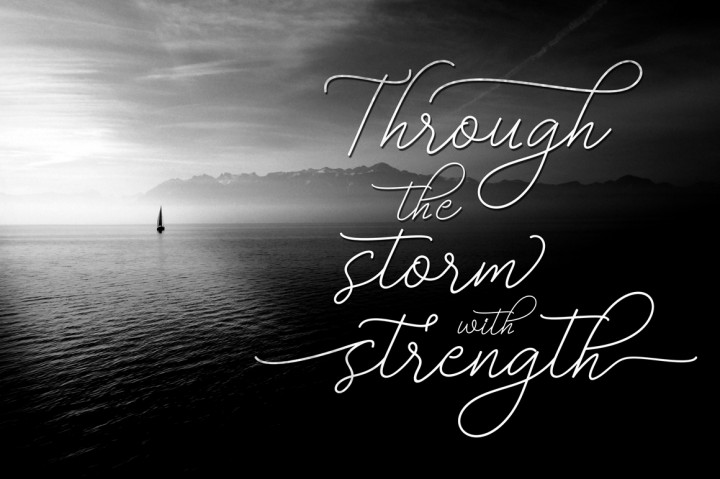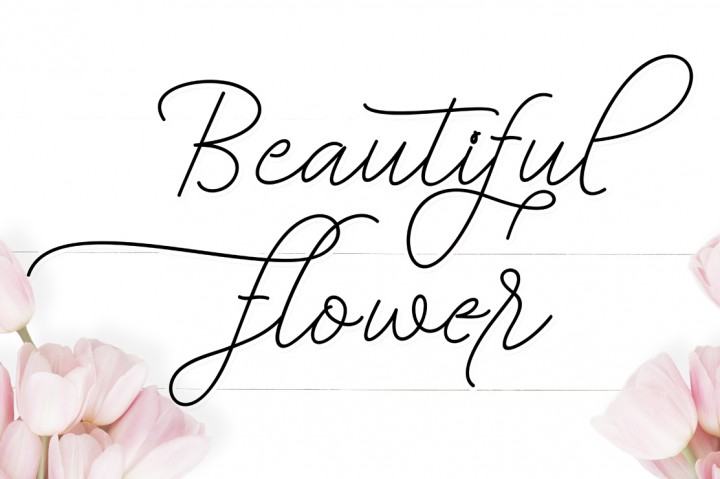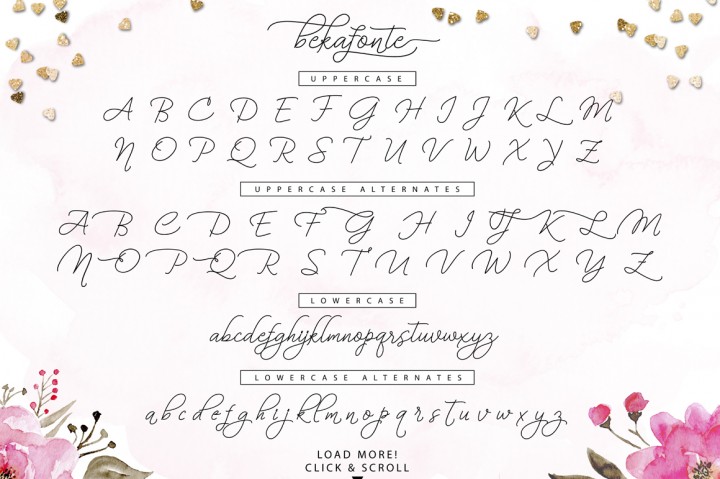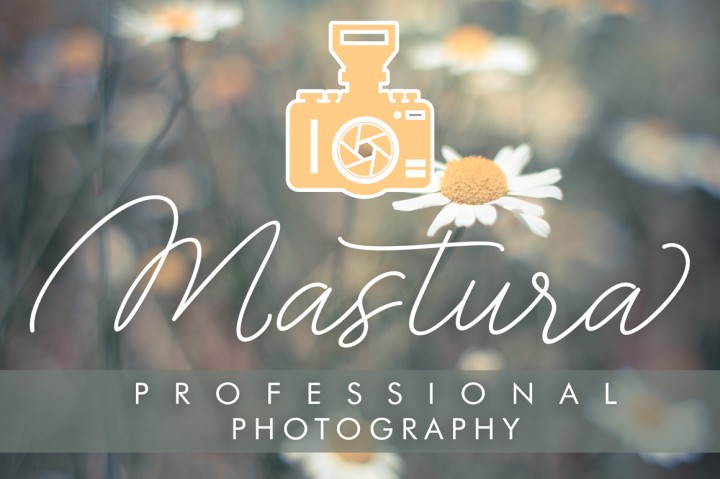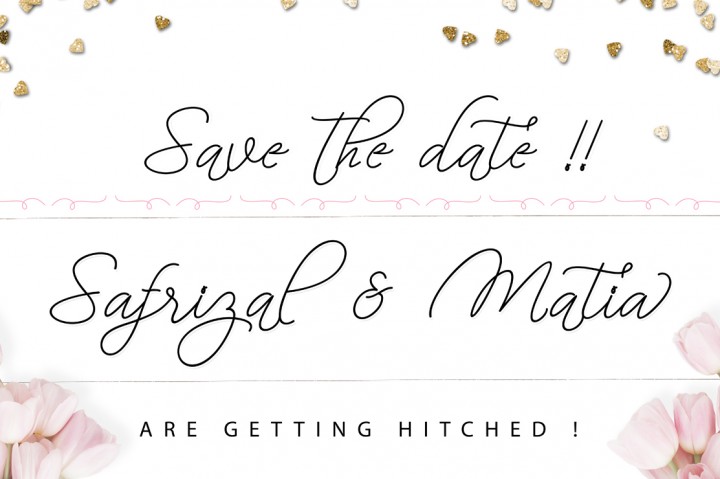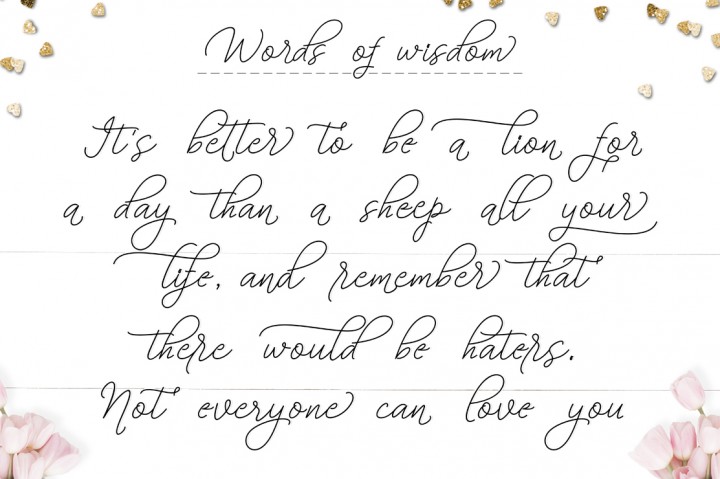
Bekafonte Font: Elevate Your Design with Elegance and Style
In the world of typography, fonts play a crucial role in conveying the tone and personality of a design. For designers and crafters looking to add a touch of sophistication and whimsy to their projects, the Bekafonte Font is an excellent choice. This hand-drawn font, packed with alternates and swashes, is perfect for creating visually stunning designs that exude elegance and style.
What is Bekafonte Font?
Bekafonte Font is a beautiful, hand-drawn typeface designed to bring a personal touch to your designs. Its unique, elegant, and stylish appearance makes it ideal for a wide range of projects, from wedding invitations and branding materials to packaging and digital media. The font’s versatility and charm have made it a popular choice among designers and crafters seeking to add a distinctive flair to their work.
Key Features of Bekafonte Font
- Hand-drawn with love: Bekafonte Font boasts a beautifully crafted, hand-drawn design that gives it a personal and distinctive feel.
- Packed with alternates and swashes: The font comes with a range of alternates and swashes, allowing you to experiment with different styles and create unique designs.
- Elegant and stylish: Bekafonte Font’s elegant and stylish appearance makes it perfect for designs that require a touch of sophistication.
- Great for personal touch projects: The font works exceptionally well on items that require a personal touch, such as wedding invitations, greeting cards, and bespoke branding materials.
Use Cases for Bekafonte Font
Bekafonte Font is an incredibly versatile typeface that can be used in a variety of design projects. Here are some use cases where the font truly shines:
- Wedding Invitations and Stationery: Add a touch of elegance and romance to your wedding invitations, save-the-date cards, and other stationery with Bekafonte Font.
- Branding and Packaging: Use Bekafonte Font to create unique and eye-catching branding materials, such as logos, business cards, and product packaging.
- Digital Media: The font’s clear and stylish design makes it perfect for digital media, including social media graphics, blog headers, and website titles.
- Crafting and DIY Projects: Bekafonte Font is also great for crafters and DIY enthusiasts who want to add a personal touch to their projects, such as handmade cards, scrapbooking, and journaling.
Tips for Using Bekafonte Font
To get the most out of Bekafonte Font, here are some tips to keep in mind:
- Experiment with alternates and swashes: Don’t be afraid to try out different alternates and swashes to create a unique look that suits your design.
- Pair with complementary fonts: Bekafonte Font pairs well with clean and simple fonts. Experiment with different font combinations to find the perfect match for your design.
- Adjust font size and color: Play around with font sizes and colors to create visual interest and hierarchy in your design.
Bekafonte Font is a beautiful and versatile typeface that can elevate your designs with elegance and style. Its hand-drawn design, packed with alternates and swashes, makes it perfect for a wide range of projects that require a personal touch. Whether you’re a designer or crafter, Bekafonte Font is an excellent choice for adding a touch of sophistication and whimsy to your work. So why not give it a try and see how it can transform your designs?